In Great Simple Studio we really love to search over Google Fonts cause it's basically full of hidden gems which could be used as a perfect pair to each other. In the last days of 2016 we want to share with you the result of our experiments — 5 unusual and bright font combinations we made within only Google Fonts. Use them in your web and print projects as they are, or base your own style system on them.
1 — Eczar + Work Sans
2 — Archivo Black + Tenor
3 — Rubik + Roboto Mono
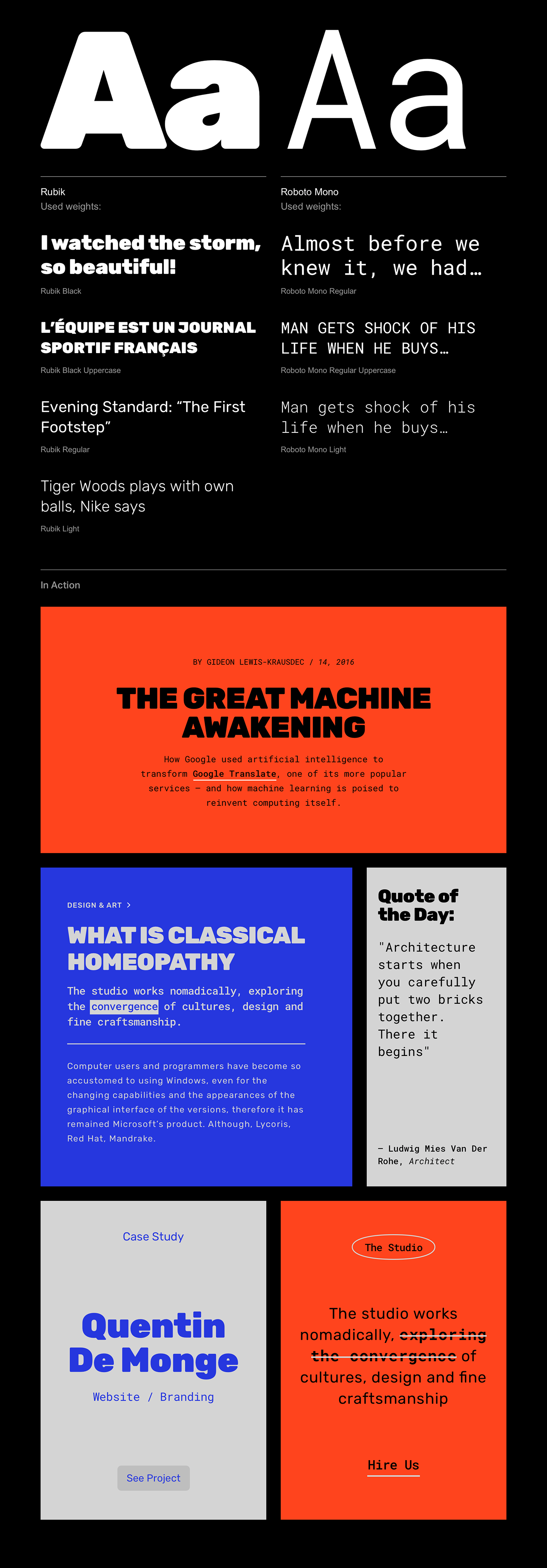
4 — Cardo + Pathway Gothic One
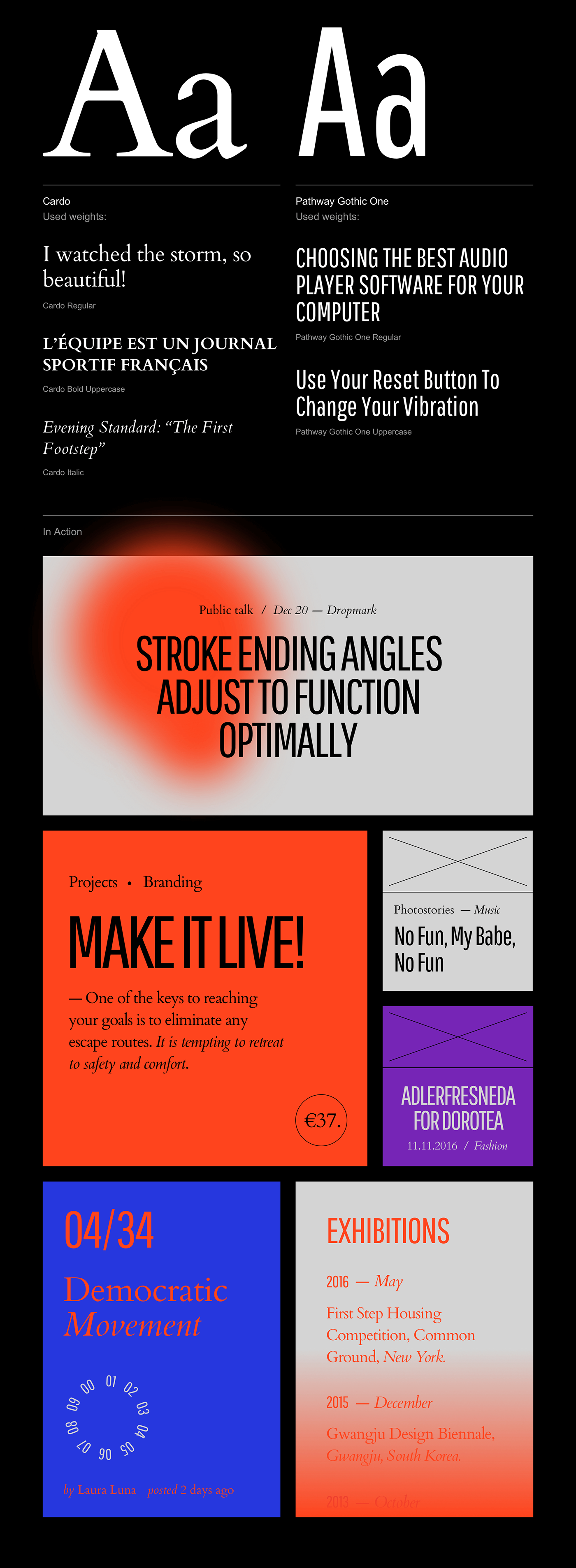
5 — Asul + Chivo